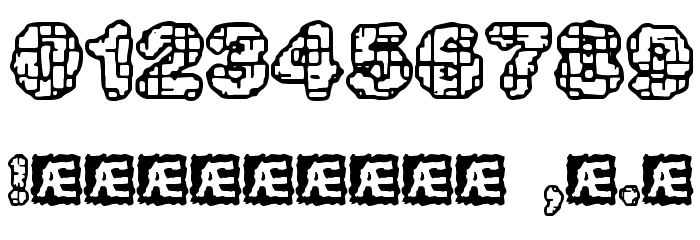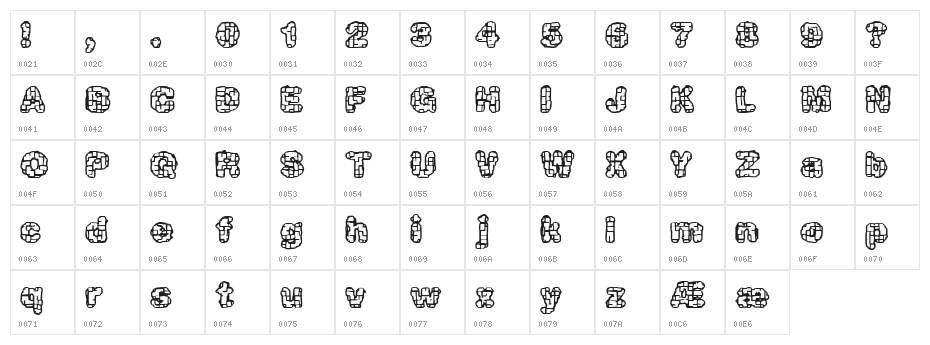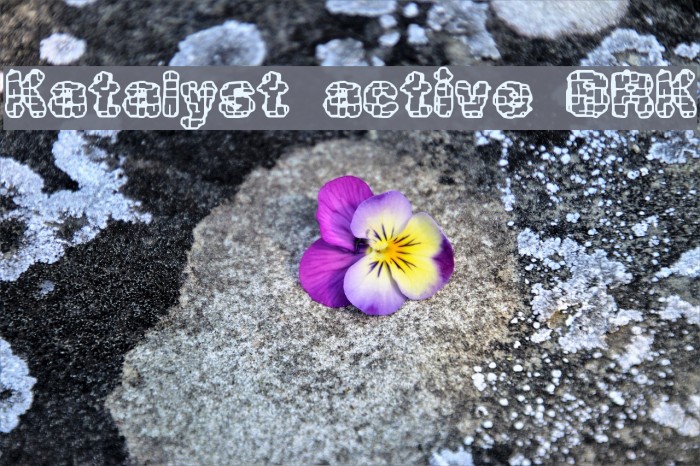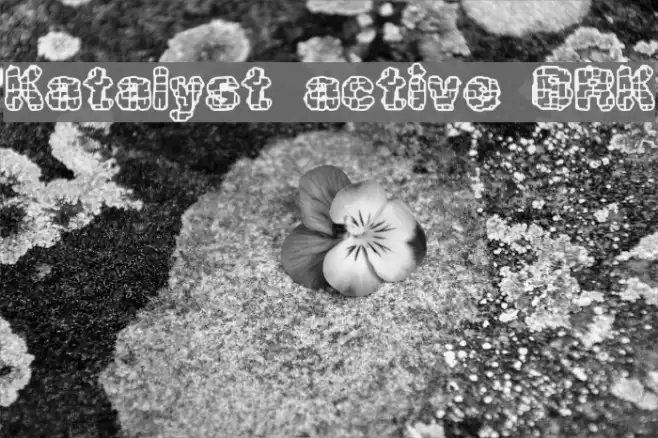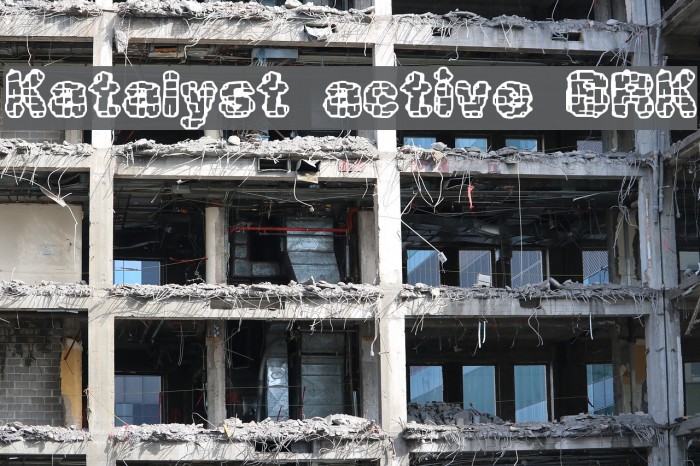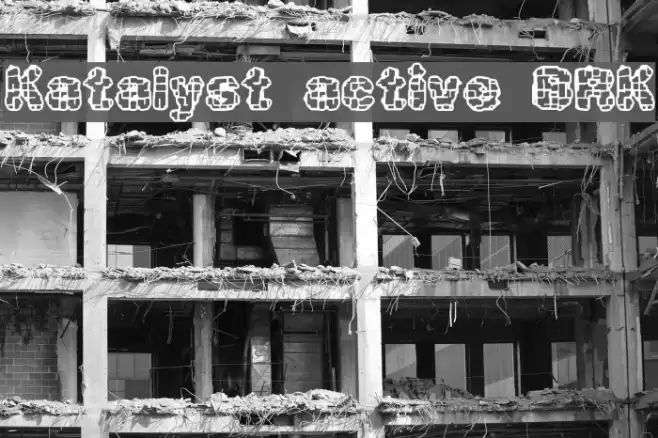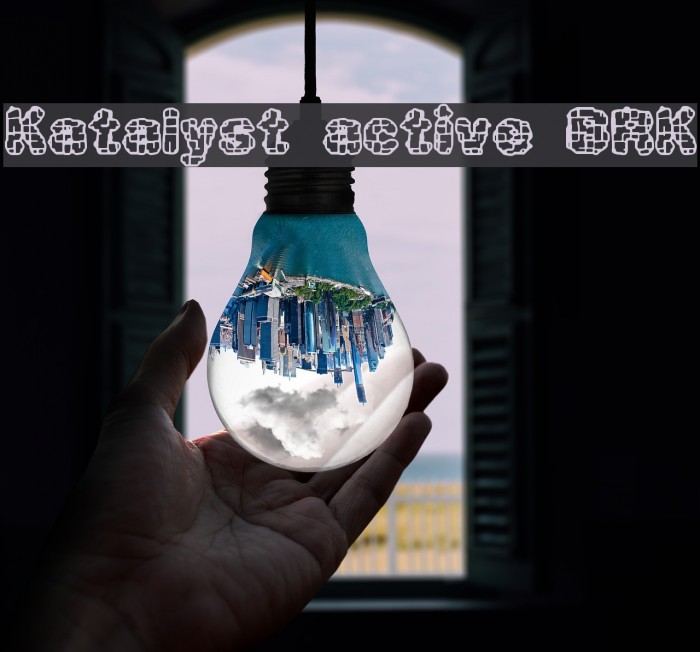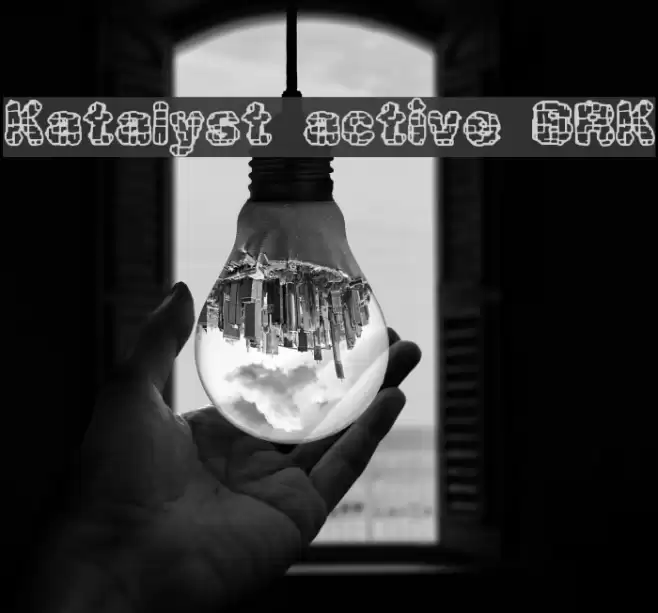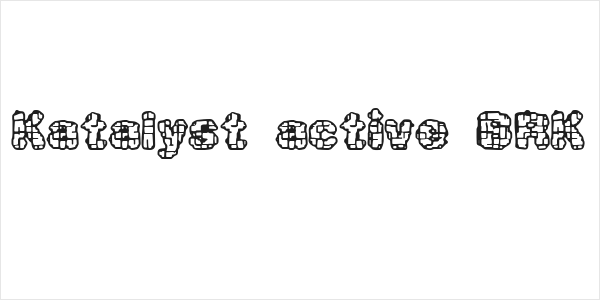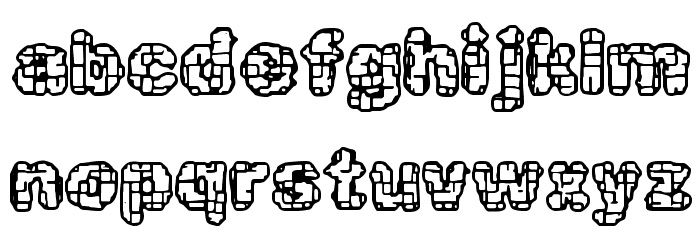
Katalyst active BRK Font
Katalyst active BRK Description
This font features a bold, playful design with a unique, blocky structure. Each character is composed of a series of interconnected geometric shapes, giving it a puzzle-like appearance. The letters are outlined with a thick black border, which enhances their visibility and adds a striking contrast against the white interior. This design choice makes the font highly decorative and eye-catching, suitable for creative and informal applications. The font maintains consistent proportions across uppercase, lowercase, and numerical characters, ensuring readability despite its intricate design. Special characters are also included, following the same stylistic approach.
| Overall Style | Playful, Modern |
| Proposed Projects | Ideal for children's book covers, playful branding, posters, and creative digital content. |